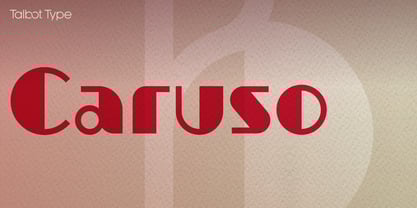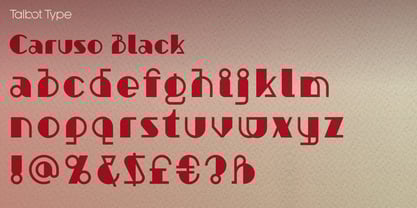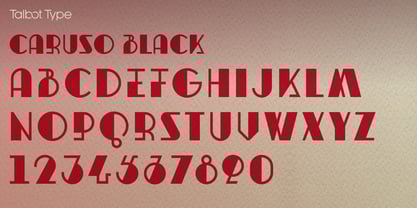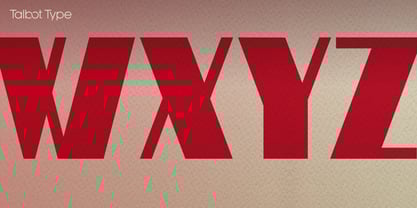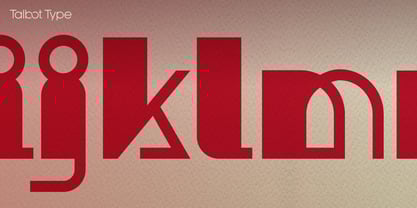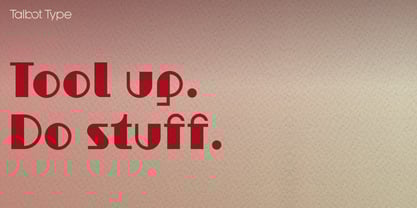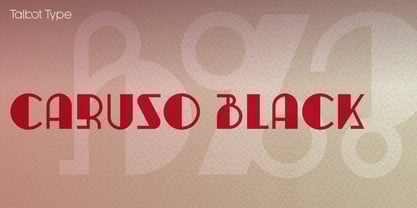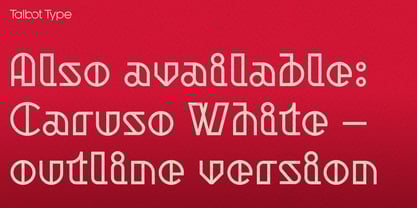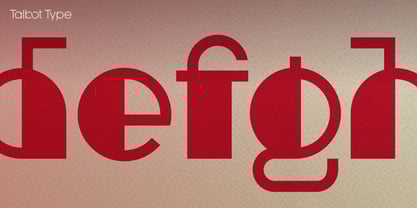
Caruso
by Talbot Type
The Caruso Font Family was designed by Adrian Talbot and published by Talbot Type. Caruso contains 2 styles and family package options. More about this family
Caruso Black is a sharp, geometric display font with an Art Deco flavour. Unlike Art Deco styles of the 1920s and 30s, it comes with full upper and lower case sets and accented characters for all Western and Central European languages making it a genuinely practical font. It's also available as an outline variation – Caruso White.
Designers: Adrian Talbot
Foundry: Talbot Type